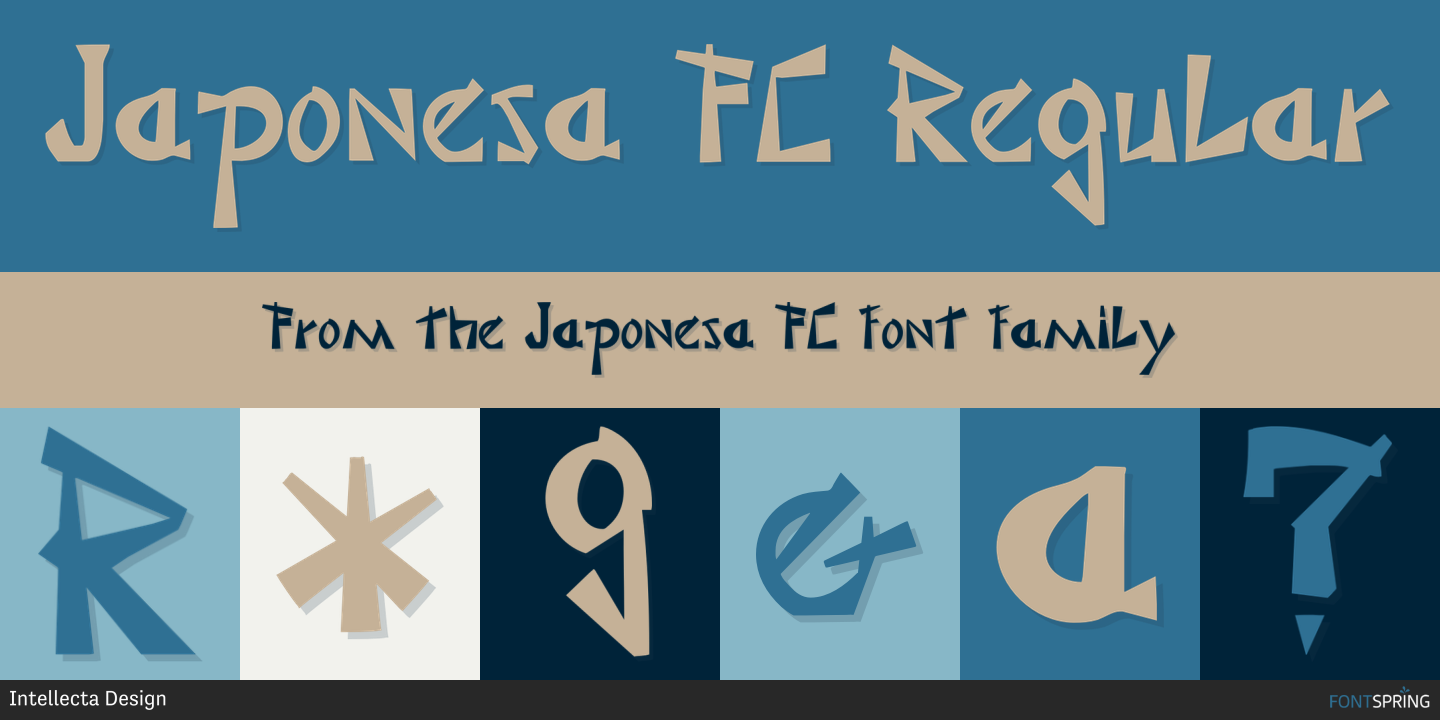
Japonesa FC
Designed by Paulo W, Japonesa FC is an exotic font family published by Intellecta Design.
a naive font inspired in the japanese language gliphs